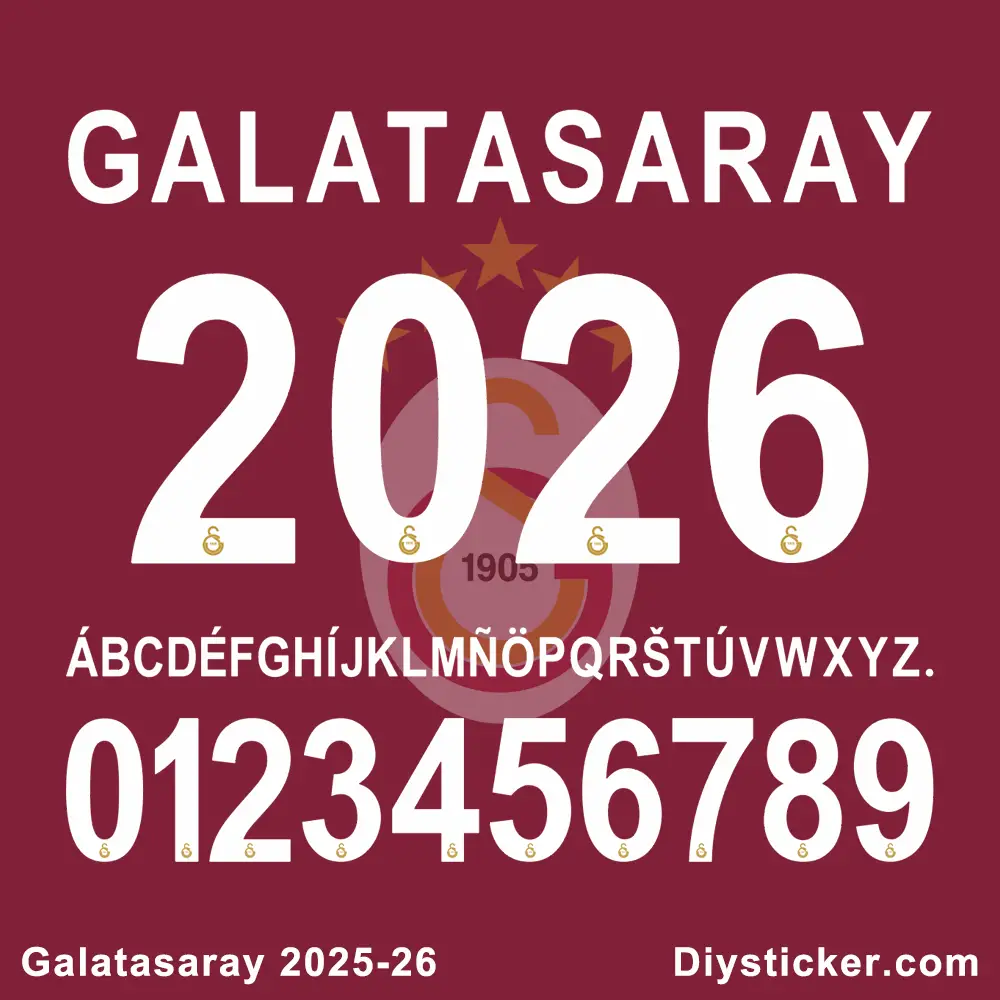
Bring the passion of the Turkish Super Lig champions to your projects with the official Galatasaray 2025-2026 Font. This is the authentic typeface used by the iconic Istanbul club for its official jerseys, marketing, and communications in the new season.